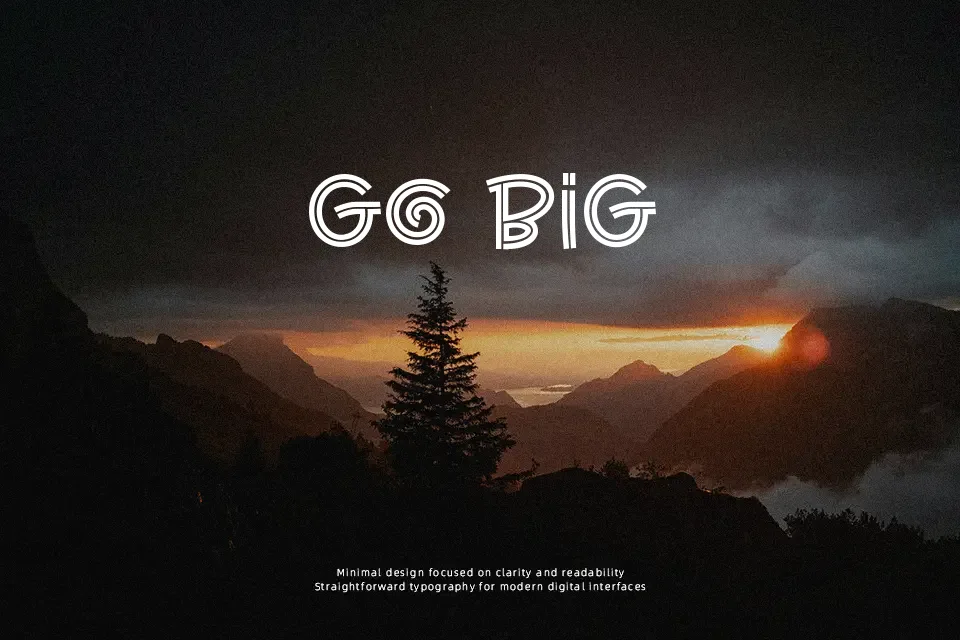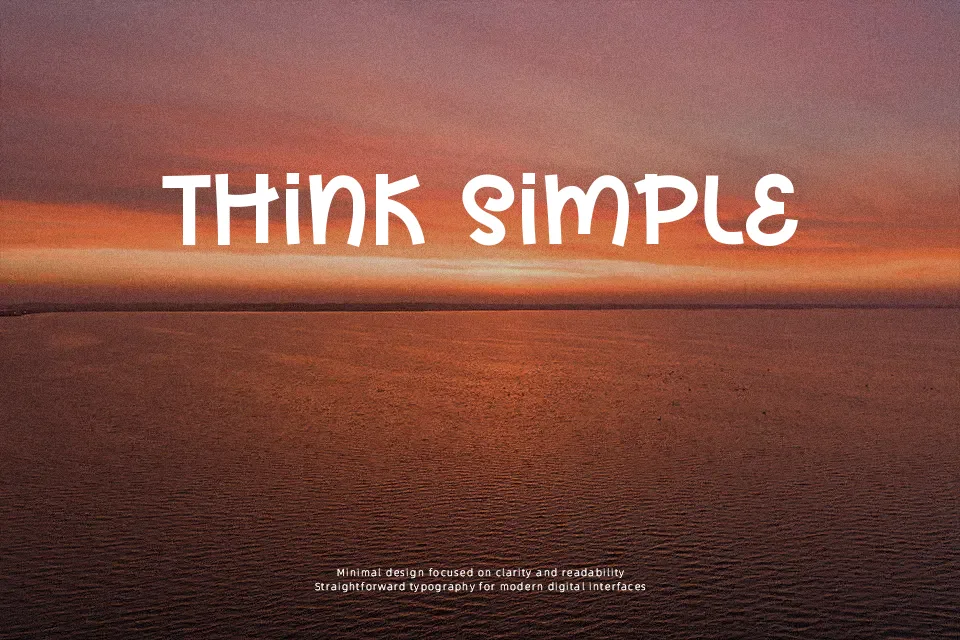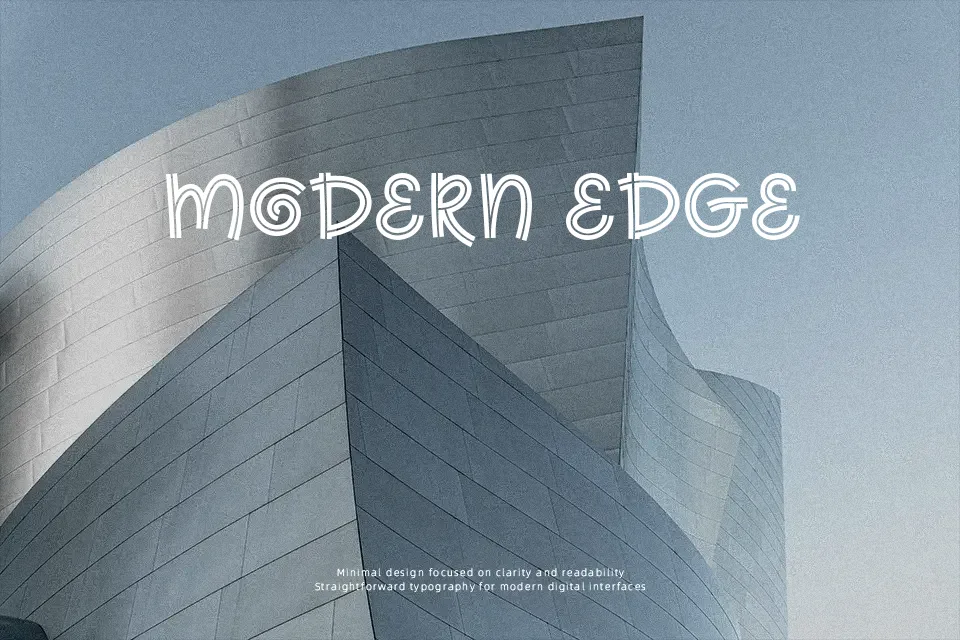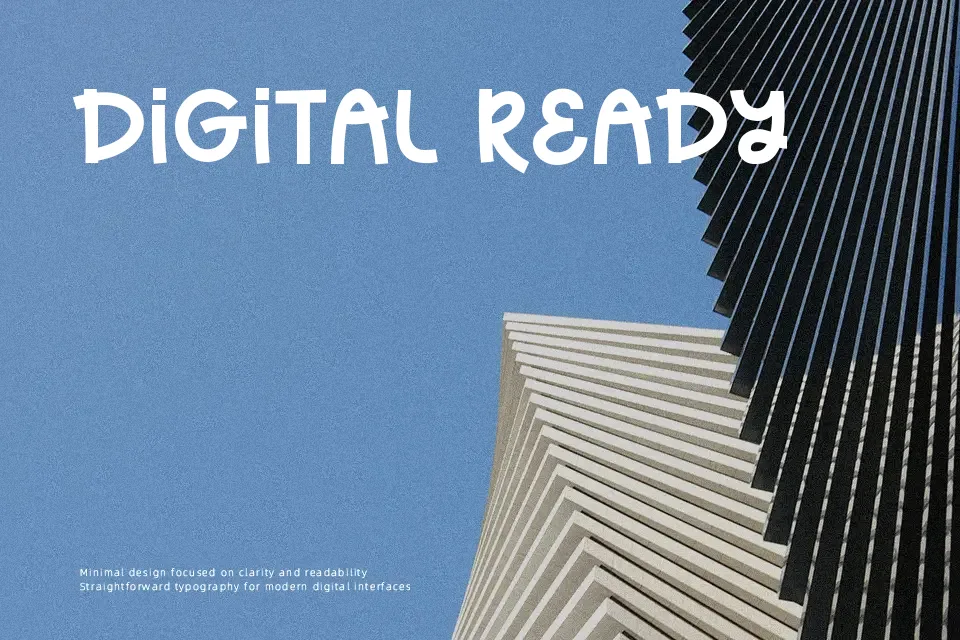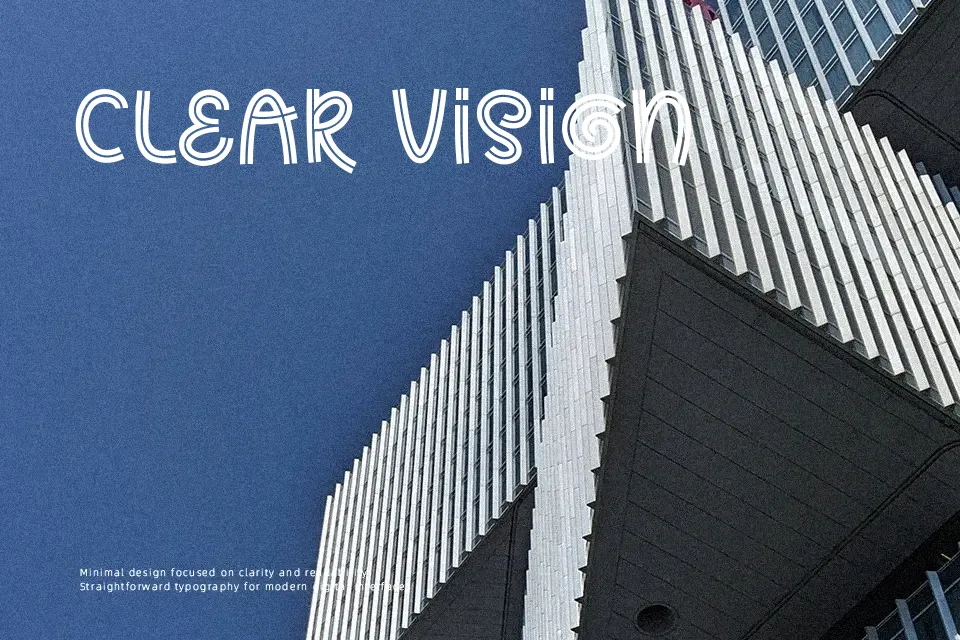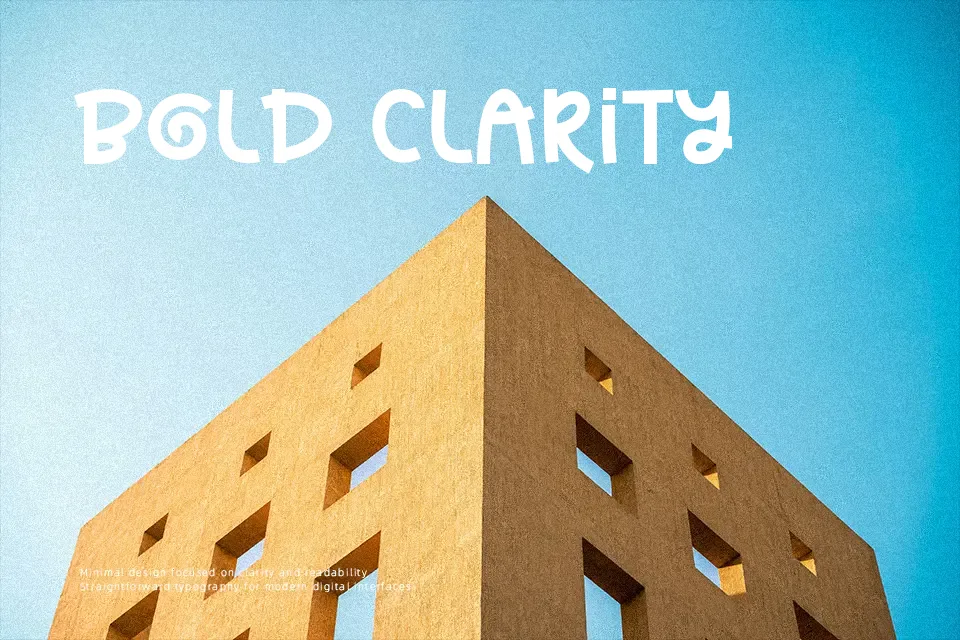
Christmas Candy Font
Christmas Candy Font is built with thick, rounded strokes and playful character structures tailored for festive graphic layouts. The uppercase glyphs maintain uniform weight and generous interior counters, while the tight character spacing creates compact word blocks that stand out on holiday posters and retail signage. Generous proportions keep short phrases legible across medium and large display formats, making the design suitable for seasonal craft projects and party banners. However, the heavy stroke density and decorative details become less effective in continuous text, where dense letterforms reduce comfort during extended reading. Balanced letter spacing helps maintain strong visual impact in headline settings.
Best For: holiday greeting cards,festive event posters,seasonal product packaging,party invitation headlines
Not Ideal For: extended paragraph text,official legal documents,small interface labels,technical publication body text
Perfect for christmas, headline, and holiday, with a bold and cartoon style.